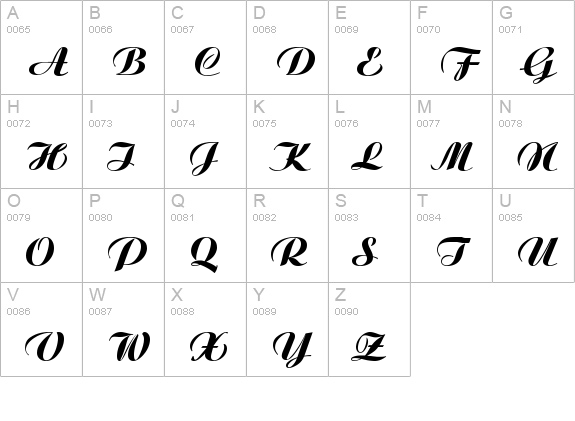
Walnuts Font Details
Walnuts font is a captivating typeface that exudes elegance and sophistication. Its unique design combines a classic feel with a modern twist, making it perfect for a wide range of design projects. With its sleek curves and graceful strokes, Walnuts font adds a touch of luxury to any text it adorns. This versatile font is suitable for both professional and personal use, making it ideal for branding, logo design, packaging, and much more. Its timeless appeal ensures that it will never go out of style, making it a valuable addition to any designer's toolkit. But what sets Walnuts font apart from the rest is the fact that it is free. Yes, you read that right! This stunning font is freely available to download at FontsMarket.com. Now, you can create stunning designs without having to worry about breaking the bank. Whether you are a seasoned designer or just starting out, Walnuts font is a must-have for your font collection. So why wait? Head over to FontsMarket.com and grab your free copy of Walnuts font today. Unleash your creativity and watch your designs come to life with this exquisite typeface. Don't miss out on this incredible opportunity to enhance your design projects with a font that is both visually striking and free to use. Download Walnuts font now and let your creativity soar!